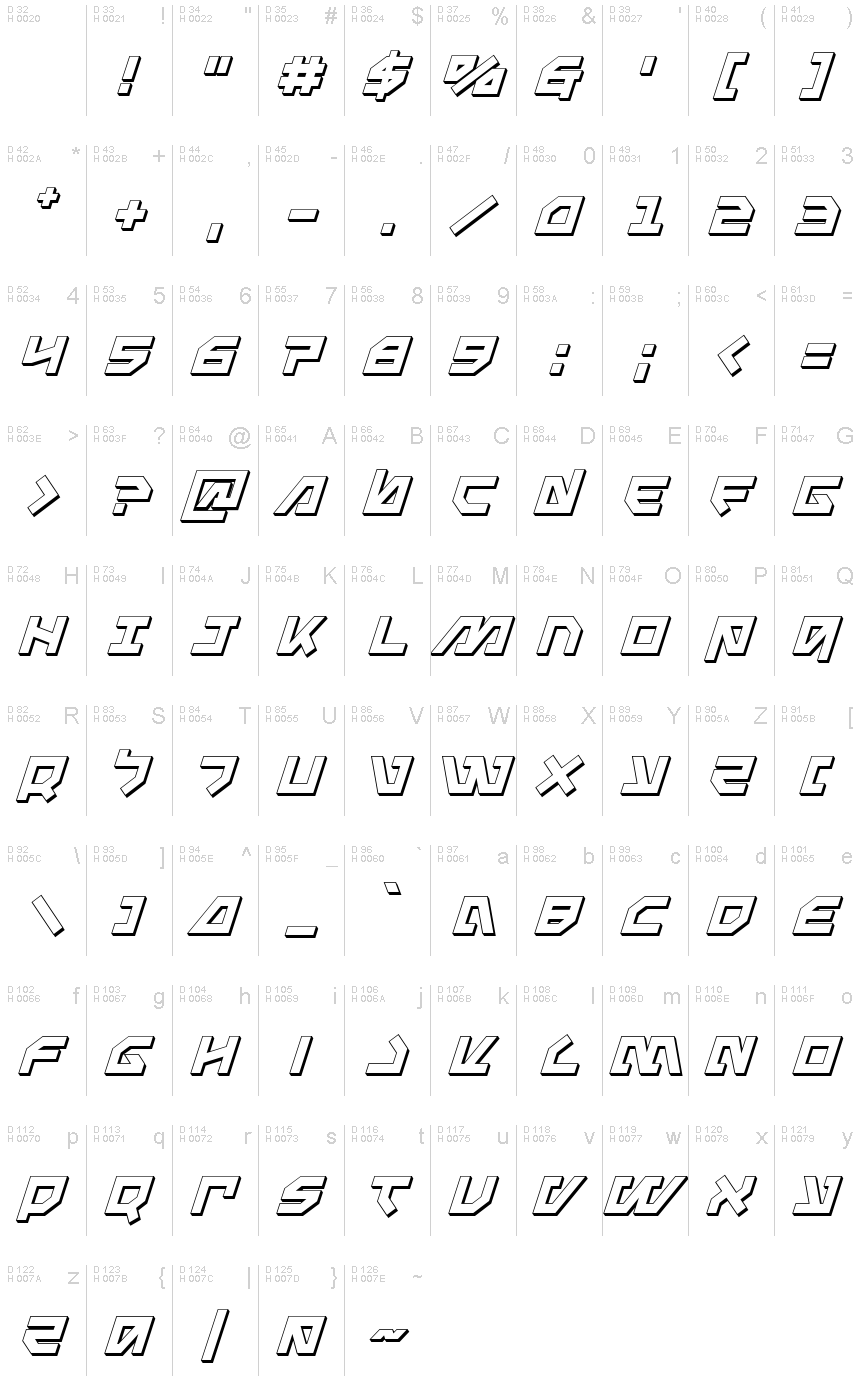
Metal Storm 3D Italic by Daniel Zadorozny of Iconian Fonts is a free outlined techno display font with sharply angled, forward-driving capitals. Open joins and clipped corners give the lettering a machined, dimensional build.
A gaming hardware brand could use its cut-metal forms across product packaging and advertising. The same industrial geometry suits esports merchandise and science-fiction event graphics, where letters resemble fabricated badges. Its aggressive slant and segmented construction strongly evoke futuristic action and motorsport themes.